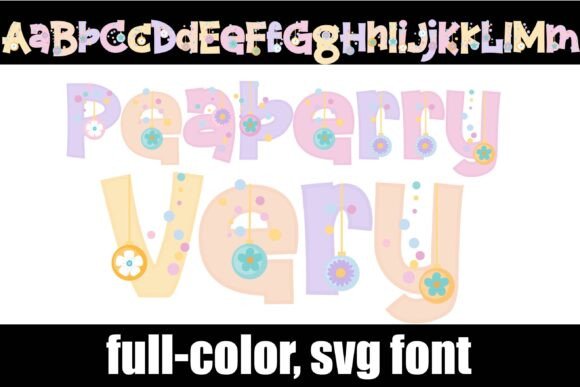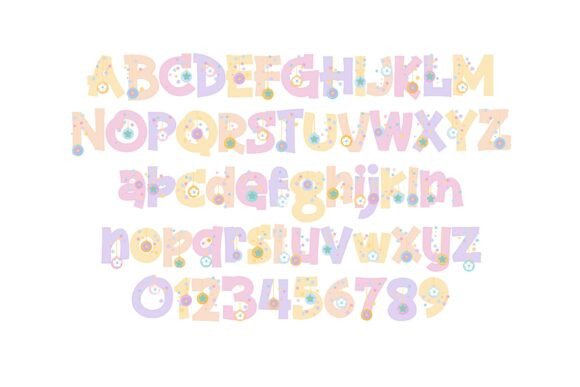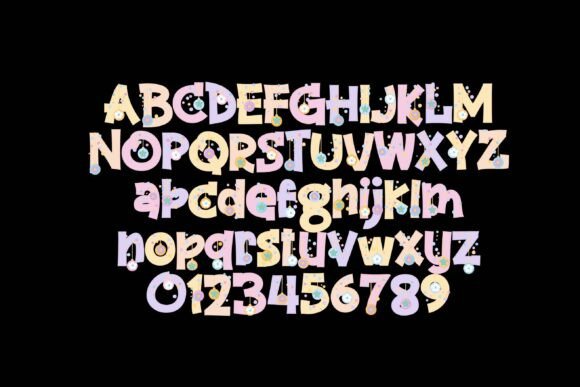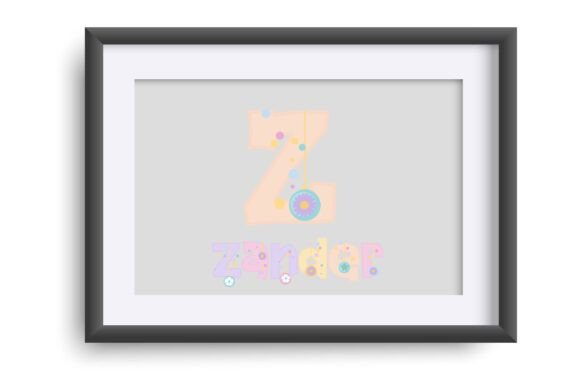
Peaberry Very Font
About the Peaberry Very Font
Welcome to the world of Peaberry Very Font, a typeface that will inspire your next great project. This full-color font features a fun sans serif font in pastel colors with floral ornaments. There is an alt case of additional colors of each letter that you can access through your system or Silhouette’s glyph map. Access a bunny and chick by typing the greater than and less than glyphs.